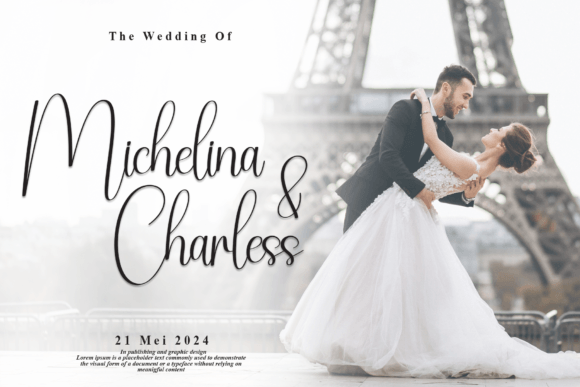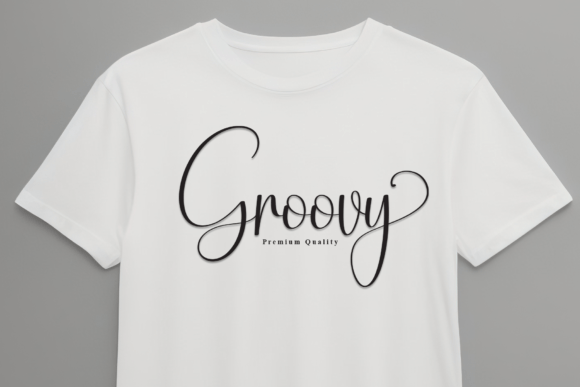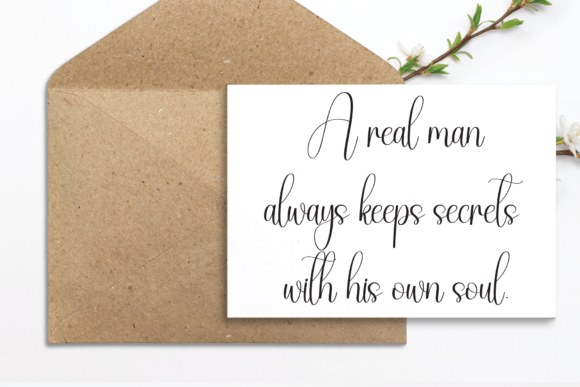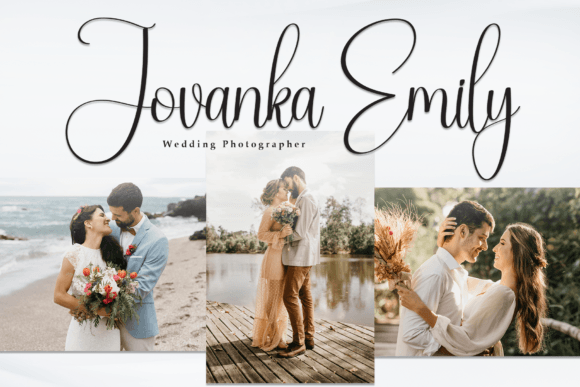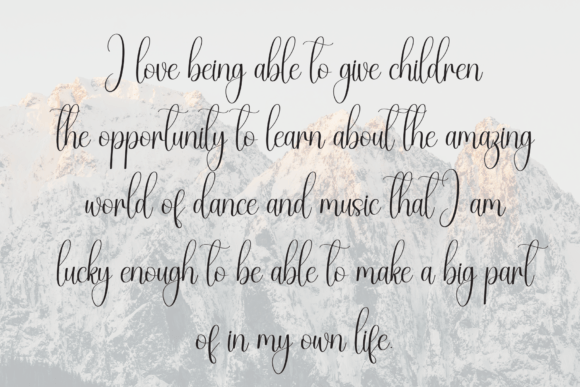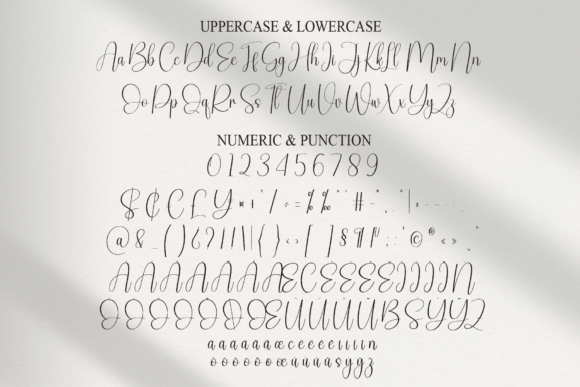
Introduction to Sadstory Font
Have you ever been captivated by a beautiful handwritten font on a wedding invitation or a stylish blog post, and wondered how you could replicate that same elegance in your own creative project? As designers, we’re constantly on the lookout for unique and high-quality design resources to elevate our work and make it stand out. This is where the Sadstory Font comes in – a modern and charming handwritten font that exudes sophistication and personality.
With its refined strokes and transparent background, the Sadstory Font is perfect for designers who want to add a touch of luxury to their projects. Whether you’re working on an upscale invitation, a personal branding project, or a chic editorial design, this font is sure to impress. And the best part? It’s available for free download, making it an invaluable resource for any designer looking to take their creative project to the next level.
Key Features of Sadstory Font
- Unique and emotive design: The Sadstory Font is designed to evoke a sense of sadness and melancholy, making it perfect for creative projects that require a high level of emotional depth.
- Transparent background: The font features a transparent background, allowing designers to easily place it over any image or background, giving them complete control over the design.
- Perfect for design projects: The Sadstory Font is a valuable design resource for anyone working on a creative project that requires a touch of sadness and melancholy, from advertising and marketing to art and illustration.
Honest Review: Sadstory Font
I recently came across the Sadstory Font while searching for high-quality design resources for a creative project. Initially, I was drawn to its unique aesthetic, which I believe would be perfect for conveying a sense of melancholy or nostalgia.
- ✨ The font’s transparency feature allows for a seamless integration with any background, giving designers complete control over the final product.
However, I did encounter a few limitations while using the Sadstory Font:
- ⚠️ The font’s bold and italic variations could be more comprehensive, as the current selection feels a bit limited.
- ⚠️ In some cases, the font’s transparency may not render as intended in certain design applications, which can be frustrating for designers.
Overall, I believe the Sadstory Font is a valuable design resource, especially for designers who appreciate a more subtle and emotive approach to typography. While it may not be perfect, its high-quality aesthetic and transparent background make it an excellent choice for a variety of creative projects.
The Sadstory Font is a high-quality design resource that can be used to add a touch of elegance to your creative project. It features a transparent background, making it easy to use in various design applications.
To get the most out of the Sadstory Font, use it in conjunction with other design elements, such as images and graphics. Experiment with different font sizes and styles to create a unique look.
The Sadstory Font is commonly used in:
- Artistic and creative projects